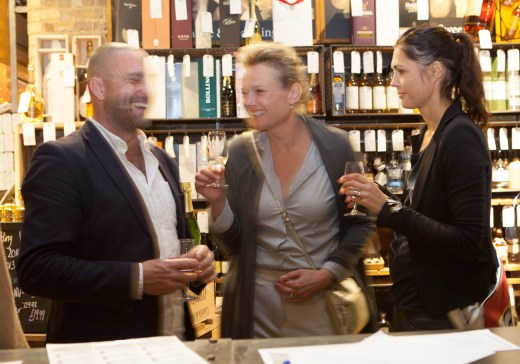
Do you Judge a Wine by its Label?
A sellout success at the London Design Festival this year
“Frankly brilliant idea of combining a type workshop with a wine tasting” It’s Nice That
Are you looking for a winter warming treat with your friends, or a unique and entertaining event for your team and clients? Join us for an innovative type and wine tasting experience and take a journey of discovery through a selection of superb wines as you explore what the design of the label tells you about what you drink.
“I learnt so much while having fun and enjoying delicious wines” A Glimpse of London
How much does a bottle cost? If it looks expensive will you enjoy it more? What does the type tell you about its provenance? Try your hand at wine and font pairing as you identify the key flavours. Ultimately is the label just there to inform you, or can it transform your tasting experience?
The wine and type tasting evening has been created by innovative type expert Sarah Hyndman, founder of Type Tasting, and is co-hosted by Grant Hedley the knowledgeable wine tasting expert (tough job) with Laithwaite’s, who has carefully selected each of the wines for the evening.
Comments from the last event: “Fun and informative” “Eye-opening” “Interesting and surprising” “Fascinating” “Illuminating” “A different perspective” “Typography + wine tasting = the best of both worlds” “Fantastic experience, would definitely recommend it” “Great, fun and informative”
“It was certainly an eye-opener to realise that so much of what we taste is influenced by our other senses” SEEN London
The event will be held in the “delightfully cool” brick-lined Laithwaite’s store beneath the railway arches; a family owned, independent wine merchant.
“More than an excuse for weeknight drinking, wine was a clever example of the influence of typeface … don’t worry; you don’t need to be a typography nerd” Digital Arts